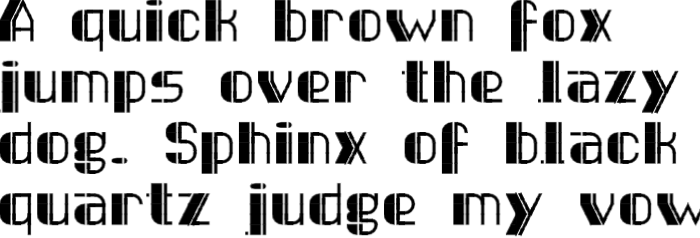
Looks awesome!
Congratulations! FontStruct Staff have deemed your FontStruction worthy of special mention. “Grade” is now a Top Pick.
Congratulations on your second published TP! The font looks perfect for silent film captions and Charleston ball invitations.
It's like Unicorp font
I have not seen a unicorp font before ...
if it is similar, it could only have been coincidence.
Don't worry it's a super comon Art Deco type of lettering with countless of similar fonts like it
@Sed4tives, True, I honestly did not copy from another font the design.
however it is not an unusual font type.